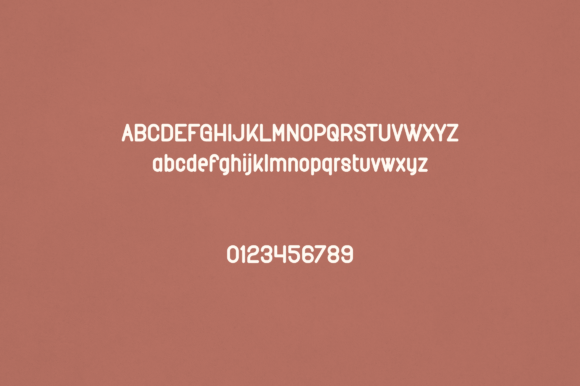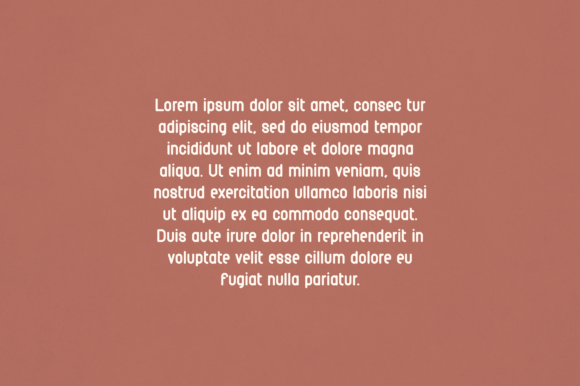
Introducing Carlene Font: Elevate Your Typography with Elegance and Versatility
In the world of typography, a font can make or break the visual appeal of a design. For designers and crafters seeking to add a touch of sophistication and uniqueness to their projects, Carlene Font emerges as an exceptional choice. This elegant and versatile sans serif font is designed to transform your typography into something truly remarkable, making it perfect for a wide range of applications.
What Makes Carlene Font Stand Out?
Carlene Font boasts a sleek and modern sans serif design that exudes elegance and simplicity. Its clean lines and curves make it an incredibly versatile font, suitable for various design projects. Whether you’re working on a logo, branding materials, headlines, or plain text, Carlene Font adds a touch of sophistication that can elevate your design to new heights.
One of the key advantages of Carlene Font is its adaptability. It’s a font that can seamlessly fit into numerous design contexts, including:
- Branding Projects: Create a lasting impression with a unique and elegant font that sets your brand apart.
- Home-ware Designs: Add a touch of sophistication to your home-ware designs, making them stand out in a crowded market.
- Product Packaging: Elevate your product packaging with a stylish font that enhances the overall aesthetic.
- Magazine Headers: Grab attention with elegant and readable headers that set the tone for your content.
- Text Overlay: Use Carlene Font as a stylish text overlay on any background image, adding depth and sophistication to your visuals.
Why Choose Carlene Font?
Choosing Carlene Font for your design projects comes with numerous benefits:
- Unique Typography: Stand out with a font that offers a fresh and unique take on sans serif typography.
- Elegance and Versatility: A perfect blend of elegance and versatility that suits a wide range of design needs.
- Easy to Read: Despite its elegant design, Carlene Font remains highly readable, making it suitable for both headlines and body text.
- Customization: The font’s clean and simple design makes it easy to customize and adapt to your project’s specific needs.
Tips for Using Carlene Font Effectively
To maximize the potential of Carlene Font, consider the following tips:
- Pair with Complementary Fonts: While Carlene Font is versatile on its own, pairing it with complementary fonts can add depth and interest to your design.
- Experiment with Sizes and Weights: Don’t be afraid to experiment with different sizes and weights of Carlene Font to create visual hierarchy and emphasis.
- Consider Your Audience: Ensure that the elegance and sophistication of Carlene Font align with the tone and style of your project and resonate with your target audience.
Carlene Font is more than just a font; it’s a design element that can transform your projects with its elegance and versatility. Whether you’re a designer looking to elevate your branding, a crafter seeking to add a touch of sophistication to your home-ware designs, or a digital artist aiming to create stunning text overlays, Carlene Font is an excellent choice. Its wide range of applications, combined with its unique and stylish design, makes it a valuable addition to any designer’s toolkit. So, why settle for ordinary typography when you can enchant your designs with the elegance and versatility of Carlene Font?
Embrace the world of unique typography with Carlene Font and discover how this elegant and versatile sans serif font can make your designs truly unforgettable.